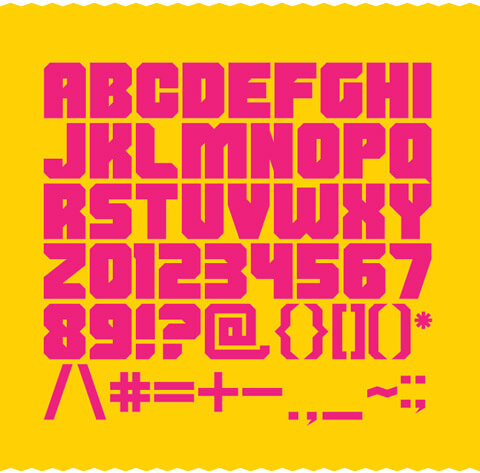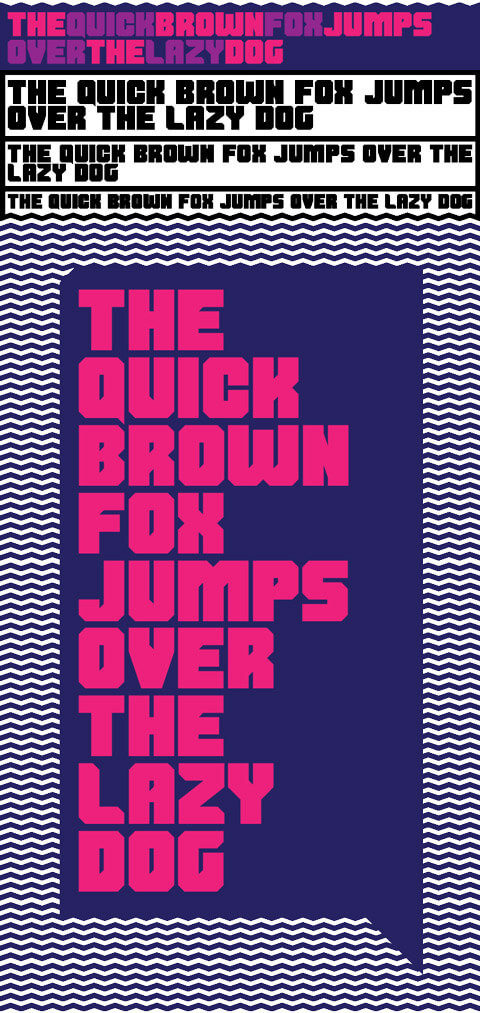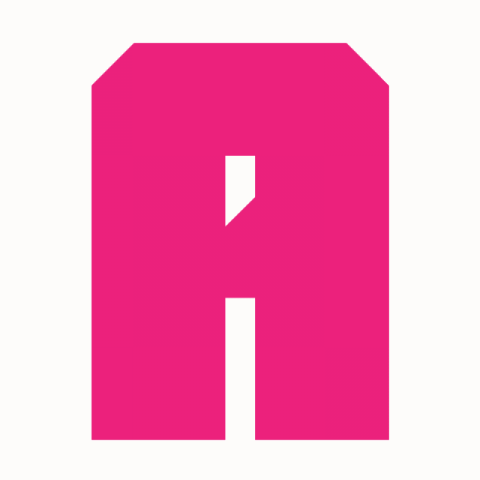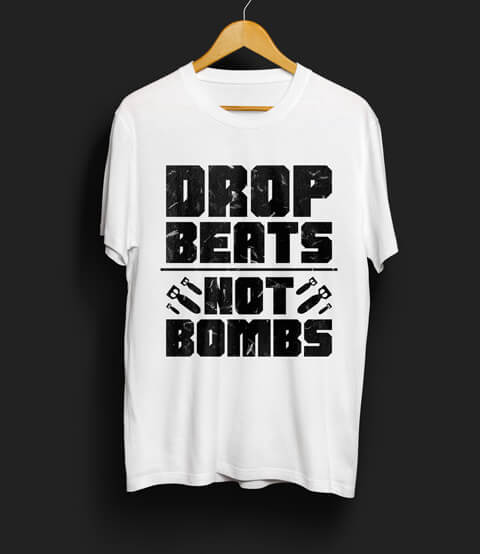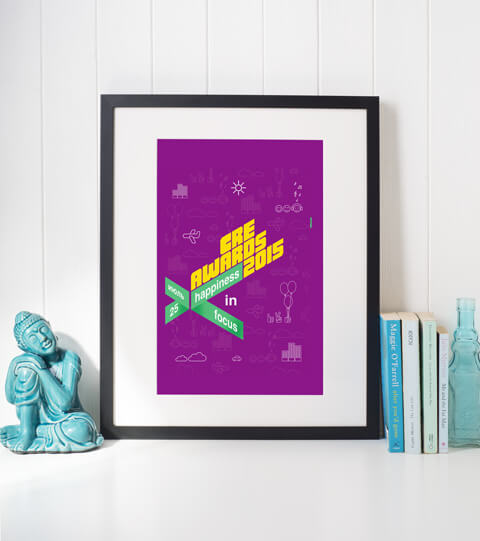
Free Download: Shumi Font
Discover the exceptional Shumi font download, a remarkable typeface crafted by Ivan Shumikhin. This font is now available for you at no cost, making it an ideal addition to your design toolkit. Its distinctive style lends itself beautifully to a wide array of summer projects. Whether you’re creating eye-catching logotypes, impactful posters, stylish badges, clear signage, professional business cards, or trendy t-shirt designs, the Shumi font delivers. Furthermore, its versatility means it can adapt to virtually any creative endeavor you can imagine.
The Shumi font is incredibly adaptable. Its clean lines and unique character make it stand out. Use it for branding, marketing materials, or even personal invitations. The possibilities are truly endless. For more design inspiration, explore our deals. You might find other amazing resources to complement your projects. Remember, a great font can transform a good design into a great one.